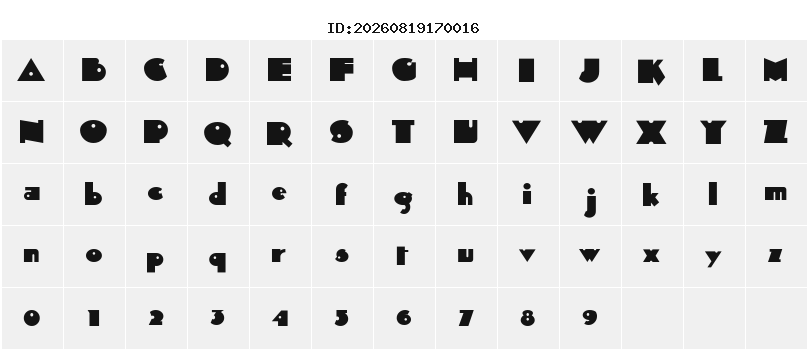
Sid-theKid Preview
• Font Name: Sid-theKid
• Full Font Name: Sid-theKid
About Sid-theKid.ttf
Sid-theKid.ttf is a modern, elegant sans-serif font designed for ultimate readability and visual harmony. Perfect for branding, headlines, web design, and print materials.